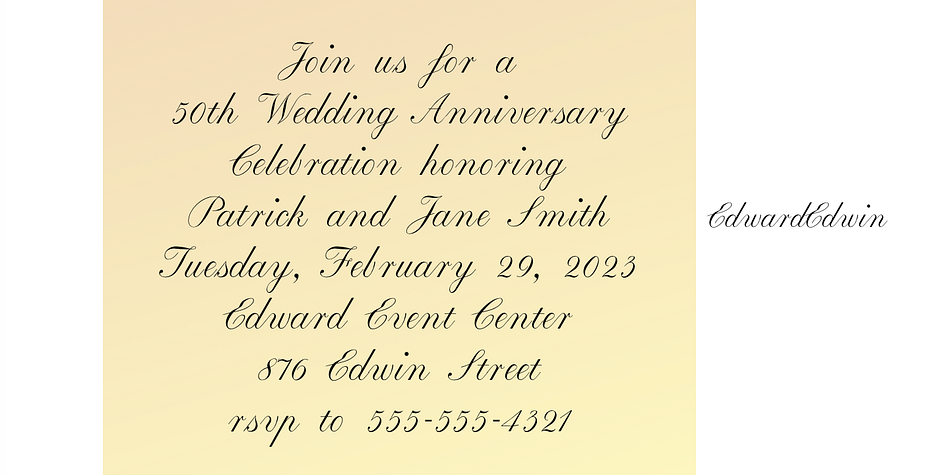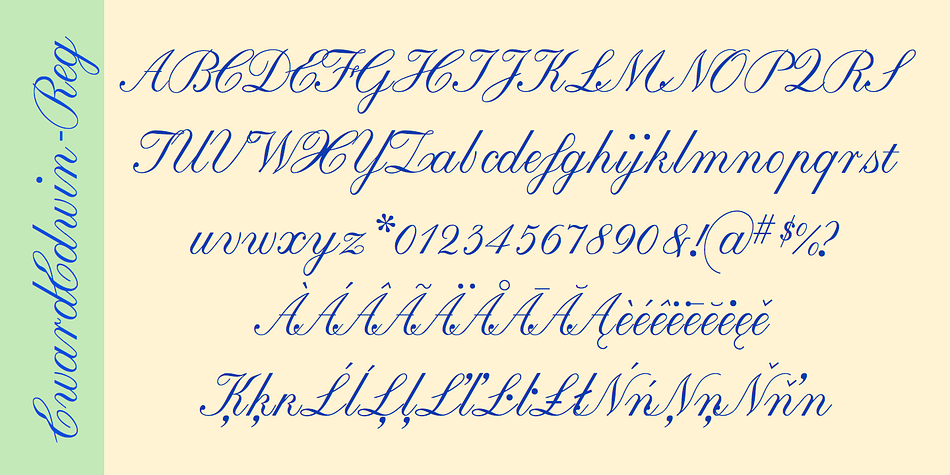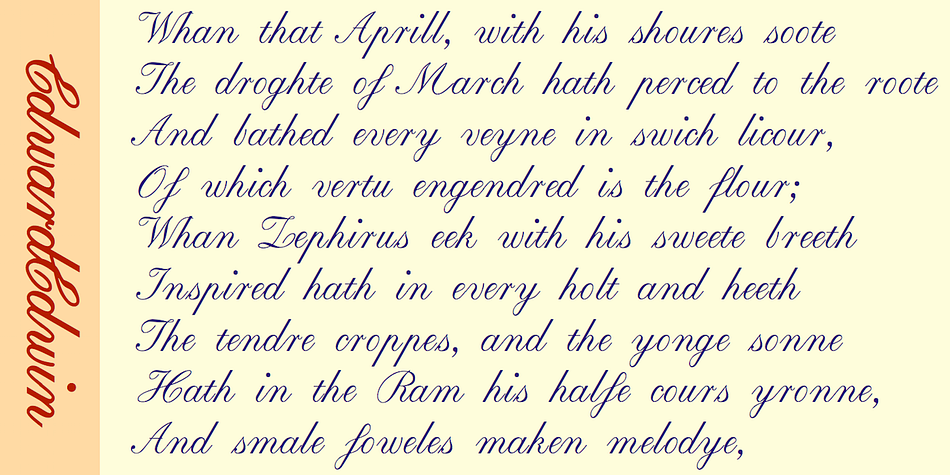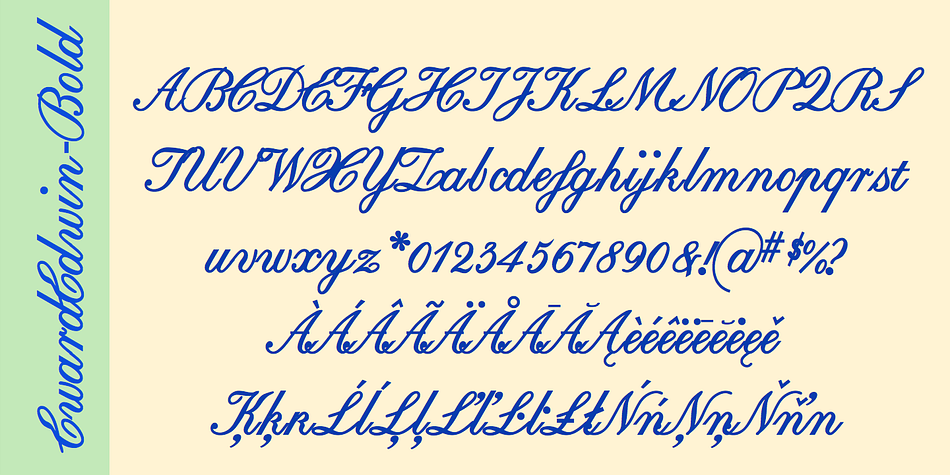
Designed by Robert Schenk, EdwardEdwin is a script font family. This typeface has two styles and was published by Ingrimayne Type.
EdwardEdwin a is simple rendition of a formal, calligraphic script in two weights.